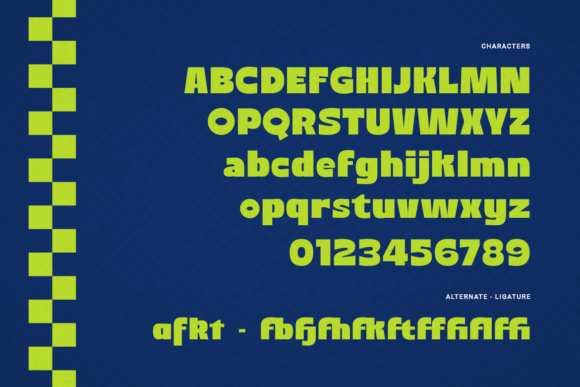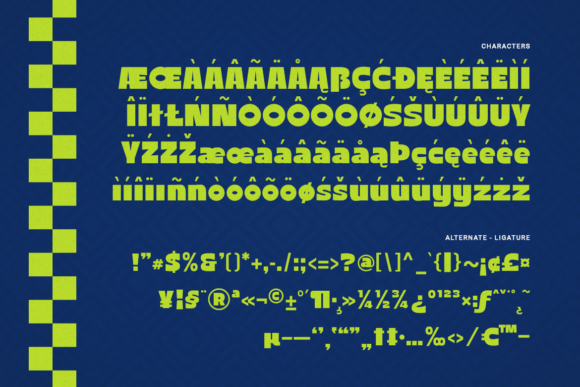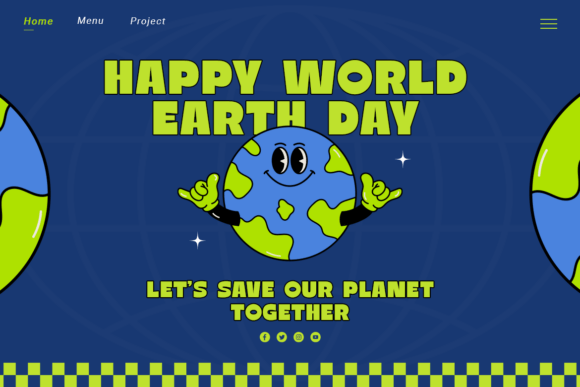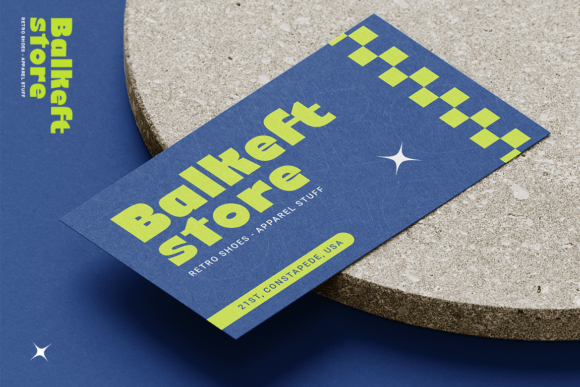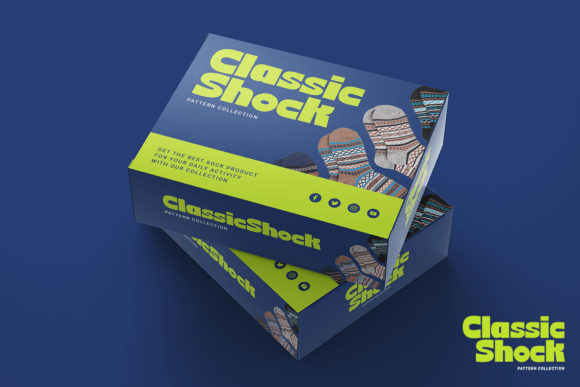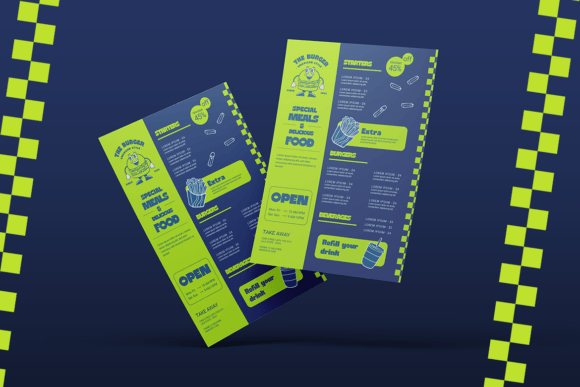
Introduction to Migrain Font
Have you ever stared at a blank canvas, eager to bring a creative project to life, but struggling to find the perfect font to set the tone? That’s where the Migrain Font comes in – a bold, retro-inspired display typeface that’s sure to capture the essence of your design. Its chunky, curvaceous characters and spirited style make it the perfect choice for eye-catching posters, memorable logos, and captivating album covers.
As a designer, you know how crucial it is to have a reliable design resource that can elevate your work and leave a lasting impression. The Migrain Font is more than just a high-quality font – it’s a key to unlocking a unique and captivating visual experience that resonates with a pleasant sense of nostalgia.
And the best part? With a transparent background, you can easily integrate the Migrain Font into your design, making it a valuable addition to your toolkit. Whether you’re looking for a free download or a premium design element, the Migrain Font is sure to deliver on both charm and modernity, making your designs come alive in a way that’s truly unforgettable.
Key Features of Migrain Font
- Unique, hand-drawn design with a high level of detail, perfect for creative projects.
- Designed to be versatile and adaptable, making it an excellent choice for a wide range of creative projects.
Honest Review: Migrain Font
I recently came across the Migrain Font, and I must say it’s been a game-changer for my creative projects. The moment I downloaded it, I was impressed by its high quality and versatility.
- ✨ Unique and modern design that stands out from the crowd
- ✨ Excellent for creating a cohesive brand identity
- ✨ Perfect for digital designs, with a transparent background that makes it easy to use
- ⚠️ Limited font weights and styles, which can be a drawback for some users
- ⚠️ Not as extensive a character set as I would have liked, which may require additional fonts for more complex projects
Overall, I’m thoroughly impressed with the Migrain Font. It’s a great addition to any designer’s toolkit, and I highly recommend it for anyone looking for a high-quality, free design resource.
Migrain Font: A High-Quality Design Resource for Creative Projects
Tips for Getting the Most Out of Migrain Font
Experiment with different font sizes and styles to find the perfect balance for your design. Use the font in combination with other design elements to create visually appealing graphics and designs. Take advantage of the font’s transparency to add depth and interest to your designs.
Common Use Cases for Migrain Font
The Migrain Font is ideal for use in a variety of creative projects, including graphic design, digital art, and document creation. Its high quality and transparent background make it a versatile design resource for designers and artists of all levels.